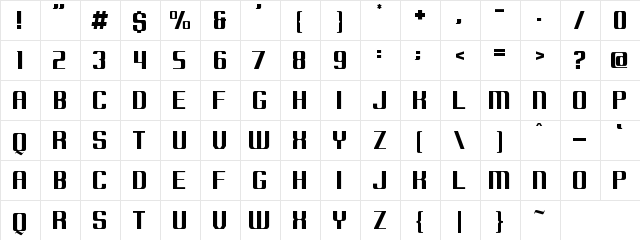
Borobudur Regular
Design Context for Borobudur Typeface
Borobudur is a composed and adaptable typeface that performs quietly and consistently across a wide range of design contexts.